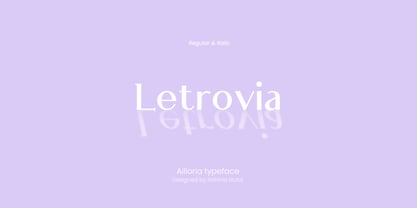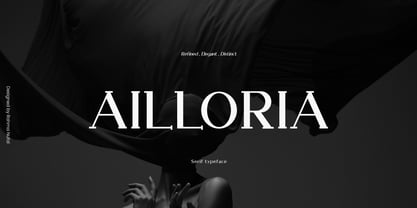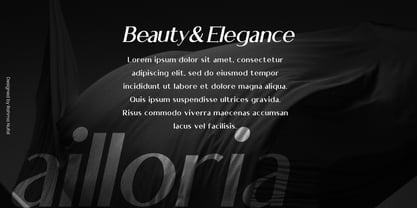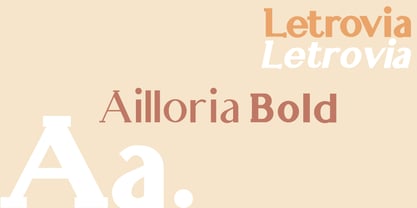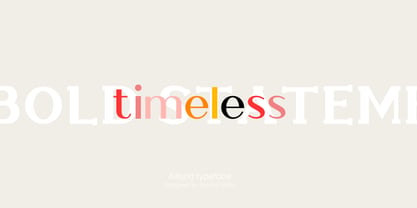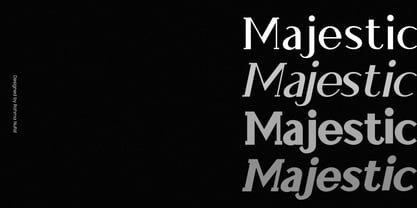
Ailloria
Ailloria is a sophisticated serif typeface that blends timeless elegance with modern versatility. Designed with precision and style, Ailloria features more than 200 meticulously crafted glyphs, making it a highly functional and aesthetically striking font.
Font Styles & Variations: Ailloria offers a comprehensive typographic range, available in:
• Regular – A balanced and graceful serif with a refined structure.
• Italic – Adds a fluid, dynamic touch while maintaining readability.
• Bold – Strong and impactful, perfect for commanding attention.
• Bold Italic – A fusion of strength and elegance for expressive typography.
Key Features: Ideal for both high-end branding and modern editorial design, and the versatile character set supports a diverse range of applications with carefully designed letterforms. Ailloria family also have an excellent legibility that maintains clarity in both print and digital formats.
Perfect for:
Luxury branding – Fashion labels, beauty products, and high-end packaging.
Editorial & publishing – Magazines, books, and sophisticated layouts.
Web & UI design – Premium websites, portfolios, and elegant user interfaces.
Marketing & advertising – High-impact headlines, posters, and promotional materials.
Wedding & event invitations – A touch of classic refinement for elegant designs.
Ailloria embodies the essence of sophisticated typography, where tradition meets contemporary aesthetics. Whether used for branding, print, or digital projects, it ensures a timeless and distinguished presence in any design.